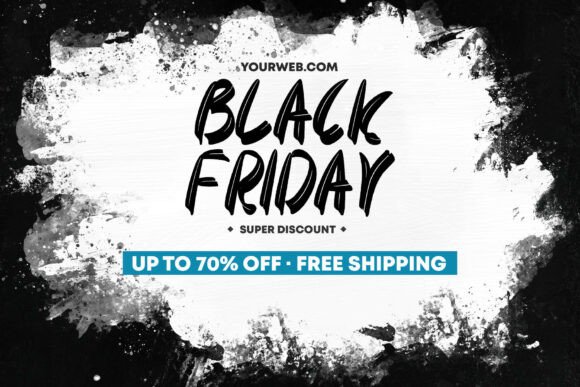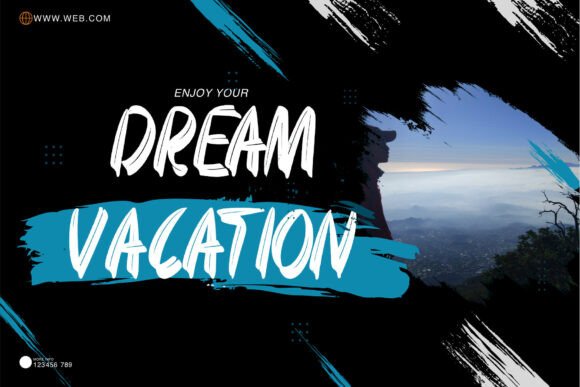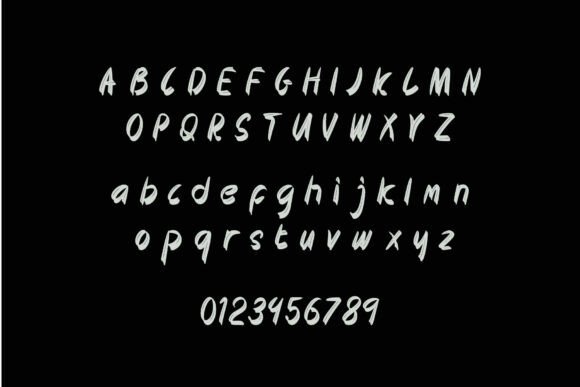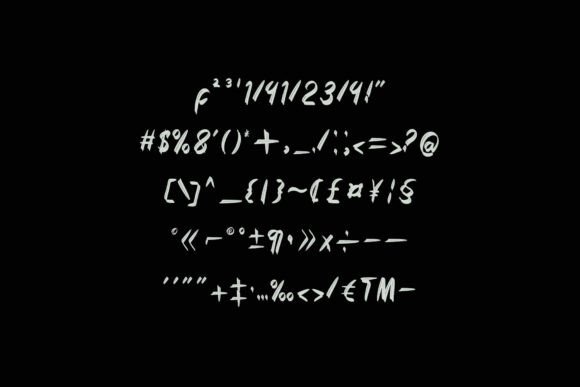
The Perfect Stroke of Genius: Unleashing the Power of Feather Brush Font
As designers, we’ve all had those moments of pure creative bliss when a font just clicks – and for me, that moment was the first time I laid eyes on the Feather Brush Font. Its bold, textured lines and slightly irregular letterforms transported me to a world where art meets typography. I knew right then that this font was destined for greatness.
Designed to evoke the natural strokes of a paintbrush, the Feather Brush Font is a brush display font that’s perfect for adding a distinctive, artistic touch to your headlines, logos, and branding. Its raw, handcrafted feel makes it a valuable asset for designers looking to inject some personality into their work.
With its unique style and versatility, the Feather Brush Font is an excellent choice for designers seeking to create eye-catching and memorable designs. Whether you’re working on a new logo or branding project, this font is sure to bring a touch of creative genius to your work.
Feather Brush Font Key Features
- Font Family: Feather Brush Font is a unique, hand-drawn font with a brush-like feel, ideal for creative and artistic projects.
- Unique Characteristics: Feather Brush Font features subtle texture and imperfections, giving it a natural, hand-painted look that sets it apart from other fonts.
- Character Set: Includes a comprehensive set of characters, including uppercase and lowercase letters, numbers, punctuation marks, and special characters.
Feather Brush Font Review
Overall, I was quite impressed with the Feather Brush Font. ✨ The subtle brush strokes and organic feel immediately caught my attention, making it perfect for creative projects that require a touch of whimsy. ✨ The font’s weight and spacing are also well-balanced, allowing for easy readability in both body and display text.
However, there are a few areas where the font falls short. ⚠️ One major limitation is the lack of language support, which can be a significant issue for designers who need to cater to a global audience. ⚠️ Additionally, the font may not be suitable for projects that require precise typography, as the brush strokes can be a bit uneven at times.
- Organic, hand-drawn feel
- Well-balanced weight and spacing
- Perfect for creative projects and branding
- Lack of language support
- May not be suitable for precise typography
Despite its limitations, I would still recommend the Feather Brush Font for designers who are looking for a unique and creative solution. Just be sure to consider the font’s limitations and plan accordingly.
Tips for Getting the Most Out of Feather Brush Font
Feather Brush Font is ideal for creating whimsical and playful designs. To get the most out of it, try combining it with other creative fonts and using it in bold or italic styles.
Feather Brush Font is commonly used in children’s book illustrations, wedding invitations, and social media graphics. It’s perfect for adding a touch of elegance and whimsy to your designs.
Alternatives to Feather Brush Font for Designers
Pacifico is a beautiful, cursive script font that is perfect for adding a touch of elegance and sophistication to your designs. It’s ideal for use in titles, headings, and body text where a handwritten feel is desired. Pacifico is more elegant and refined compared to Feather Brush Font, which has a more casual, hand-drawn feel.
Great Vibes is a stylish, modern script font that is great for creating a fun and lively atmosphere in your designs. It’s perfect for use in titles, headings, and body text where a playful, handwritten feel is desired. Great Vibes is more modern and edgy compared to Feather Brush Font, which has a more classic, vintage feel.